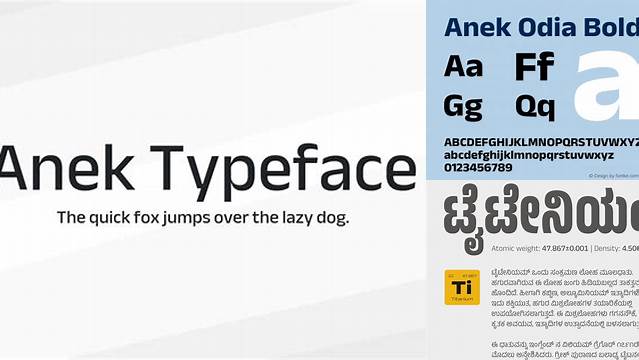
What is Anek Bold Font?
Anek Bold is a modern, sans-serif typeface that exudes confidence and strength. Its clean lines and bold weight make it an excellent choice for headlines, logos, and any design that needs to make a statement. Designed with versatility in mind, Anek Bold works beautifully in both print and digital media, ensuring your message gets across loud and clear. This free Anek Bold font offers a contemporary feel, blending sharp angles with smooth curves to create a balanced and highly readable typeface. It's a font that doesn't just speak; it commands attention.
One of the standout features of Anek Bold is its extensive character set. It includes uppercase and lowercase letters, numerals, punctuation marks, and a wide range of special characters, making it suitable for various languages and design applications. Whether you're designing a website, crafting a poster, or creating a branding identity, Anek Bold provides the flexibility you need. The bold nature of the font ensures that it stands out, making it ideal for titles and headings, while its clean design ensures readability even in smaller sizes. This makes Anek Bold a versatile option for a multitude of projects.
Moreover, Anek Bold's aesthetic appeal lies in its simplicity and modernity. The sans-serif design gives it a contemporary edge, while the bold weight adds a touch of authority and prominence. It's a font that works well in minimalist designs and equally shines when paired with more elaborate graphics. Designers often choose Anek Bold to convey a sense of strength and reliability, making it a favorite for corporate branding and promotional materials. Think about how you can use Anek Bold free download to enhance your brand's visual identity and create a lasting impression on your audience. Its distinct appearance ensures that your message is not only seen but also remembered.
Key Features and Benefits
Let's break down the key features and benefits of using Anek Bold font. Understanding these will help you see why it's such a popular choice among designers and creatives.
- Bold and Impactful: The bold weight ensures that your text stands out, making it perfect for headlines and titles.
- Modern Sans-Serif Design: Its clean, contemporary look suits a wide range of design styles.
- Versatile: Anek Bold works well in both print and digital media, from websites to posters.
- Extensive Character Set: Includes letters, numbers, punctuation, and special characters for various languages.
- Readability: Despite its bold weight, Anek Bold remains highly readable even in smaller sizes.
These benefits of Anek Bold font make it an indispensable tool in any designer's toolkit. The font's impactful nature ensures that your message grabs attention, while its readability ensures that the message is easily understood. The modern sans-serif design fits seamlessly into contemporary aesthetics, and its versatility makes it suitable for a wide range of applications. Whether you are designing a website, creating a logo, or crafting marketing materials, Anek Bold can elevate your work. Plus, the fact that it is free to download makes it an incredibly accessible option for both professional designers and hobbyists alike. Don’t underestimate the power of a free bold font like Anek Bold to transform your creative projects.